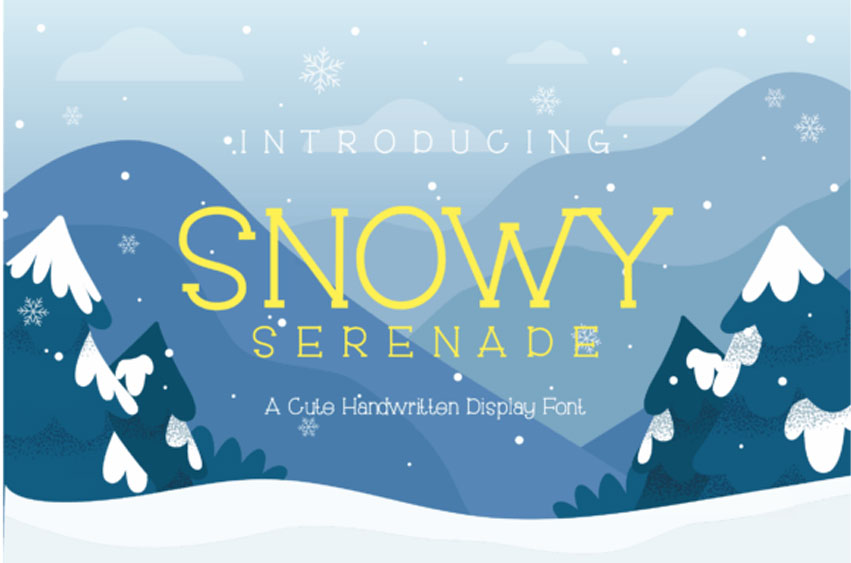
Snowy Serenade Font is very suitable for use in your work presentations such as blog design, modern design, web design, invitation cards, and others. please download and enjoy!
Crafted with high attention to detail, it gives you the best design experience.